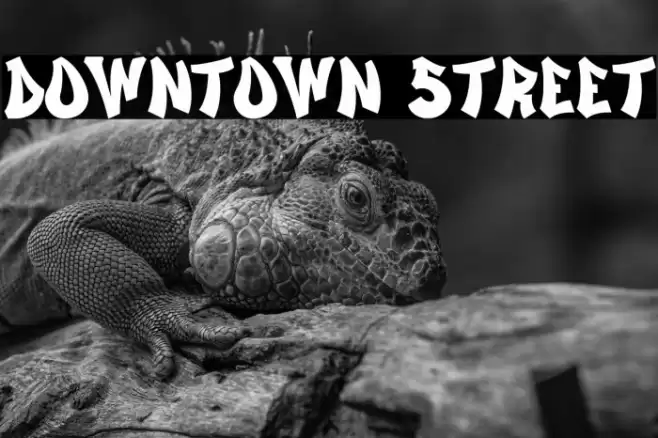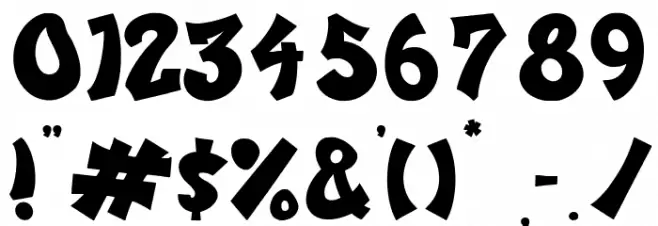
Downtown Street Font
Downtown Street Description
This font features a bold and dynamic style with a graffiti-like appearance, characterized by sharp angles and exaggerated curves. The uppercase and lowercase letters maintain a consistent visual weight, creating a cohesive look. The numbers and special characters follow the same energetic design, making the font suitable for eye-catching displays. Its unique style is reminiscent of urban street art, offering a playful yet edgy aesthetic. The font's thick strokes and high contrast make it stand out, ensuring readability while maintaining its artistic flair.
A bold, graffiti-inspired font with sharp angles and high contrast from Uncategorized fonts.
- Proposed Projects: Ideal for street art-themed designs, posters, album covers, and urban branding projects.
- Overall Style: Urban, Graffiti, Edgy
- Use Case: Headlines, Posters, Logos